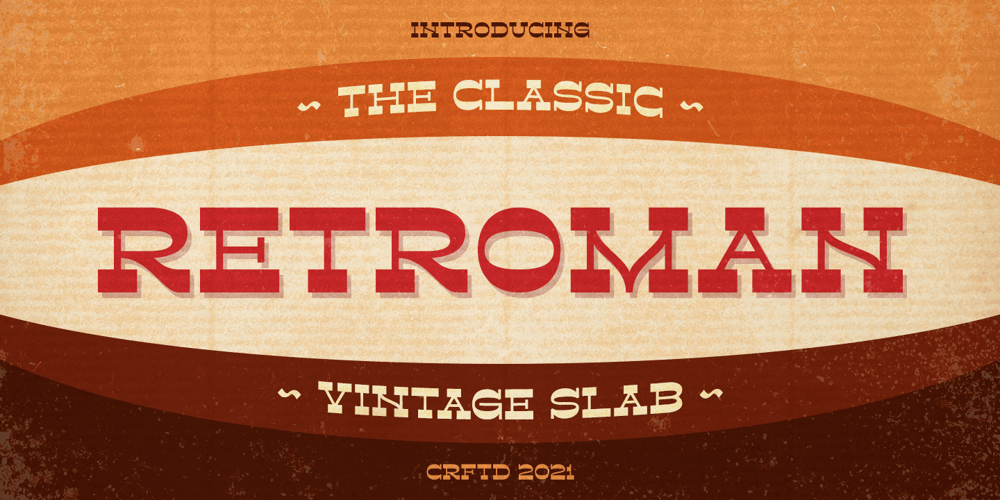
Retroman
Retroman font
Retroman Font Family was designed by Abdul Malik Wisnu and published by Almarkha Type. Retroman contains 2 styles and family package options. Retroman – Vintage Slab is a inspired by classic fonts with retro style combined with decorative Slab style nuances of western back to the era of the 70’s – 80’s, a style that is timeless.Retroman is perfect for vintagesocial media posts, Craft , Product packaging, product designs, label, branding projects, logo, advertisements, watermark, invitation, stationery and any projects .